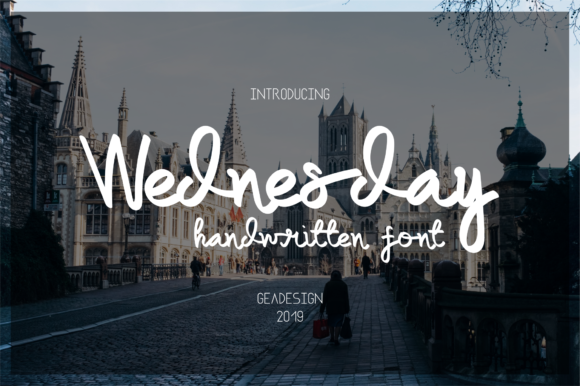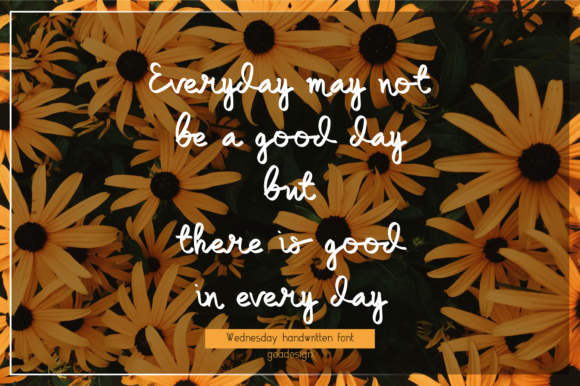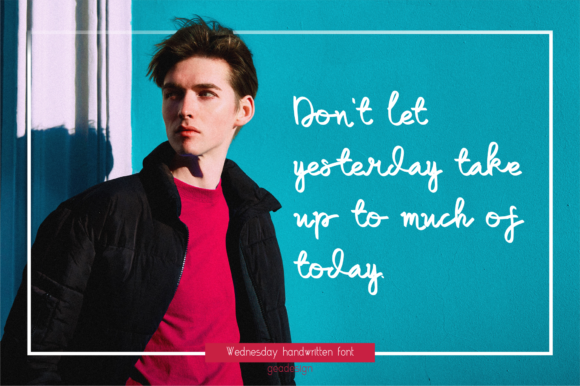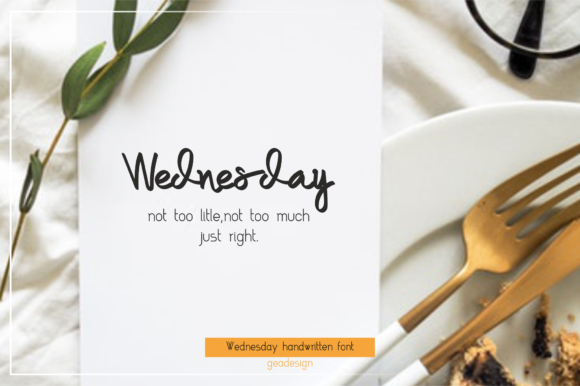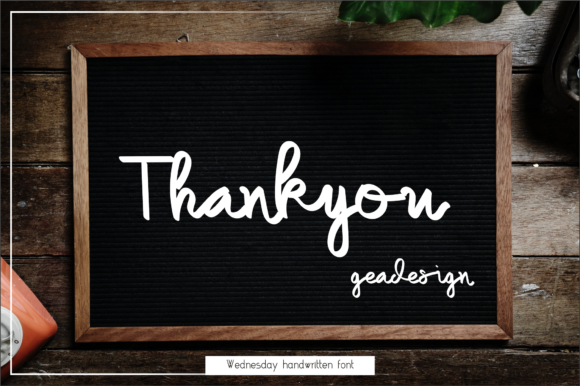
Wednesday Font
About Wednesday Font
The Wednesday is an unique handwritten font. It has a simple natural style and is perfect for adding a personal touch to your logos, branding, quotes, and much more!